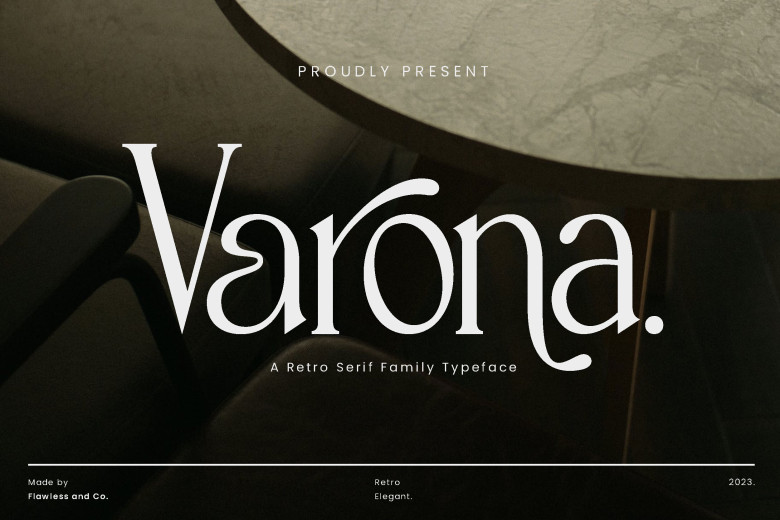
Varona Font
Varona Font – Retro Serif Family Font. Varona stands apart from traditional typographic boundaries by providing several styles including Thin, Extra-Light Light Regular Semi Bold font families.
Varona Retro Serif Font